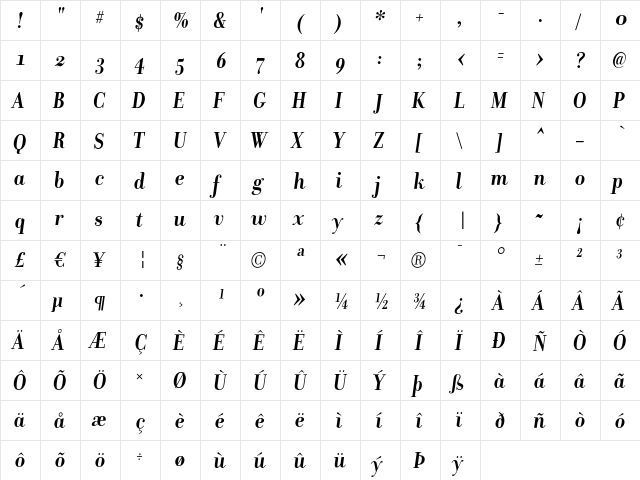
DonatoraDisplayOSF BoldItalic
Design Context for DonatoraDisplayOSF Typeface
DonatoraDisplayOSF brings ornamental detail and strong personality to headlines and identities, where visual impact matters more than quiet functionality. Its italic angle brings a sense of urgency and motion to the letterforms. Its bold stroke weight gives it real presence on the page.
Font Pairing: Pair with a clean neutral sans-serif for body copy to let DonatoraDisplayOSF's character lead without overwhelming the composition.
Pro Tip: Treat DonatoraDisplayOSF as the centrepiece of your typographic hierarchy. One strong heading set in a decorative face can carry an entire layout.